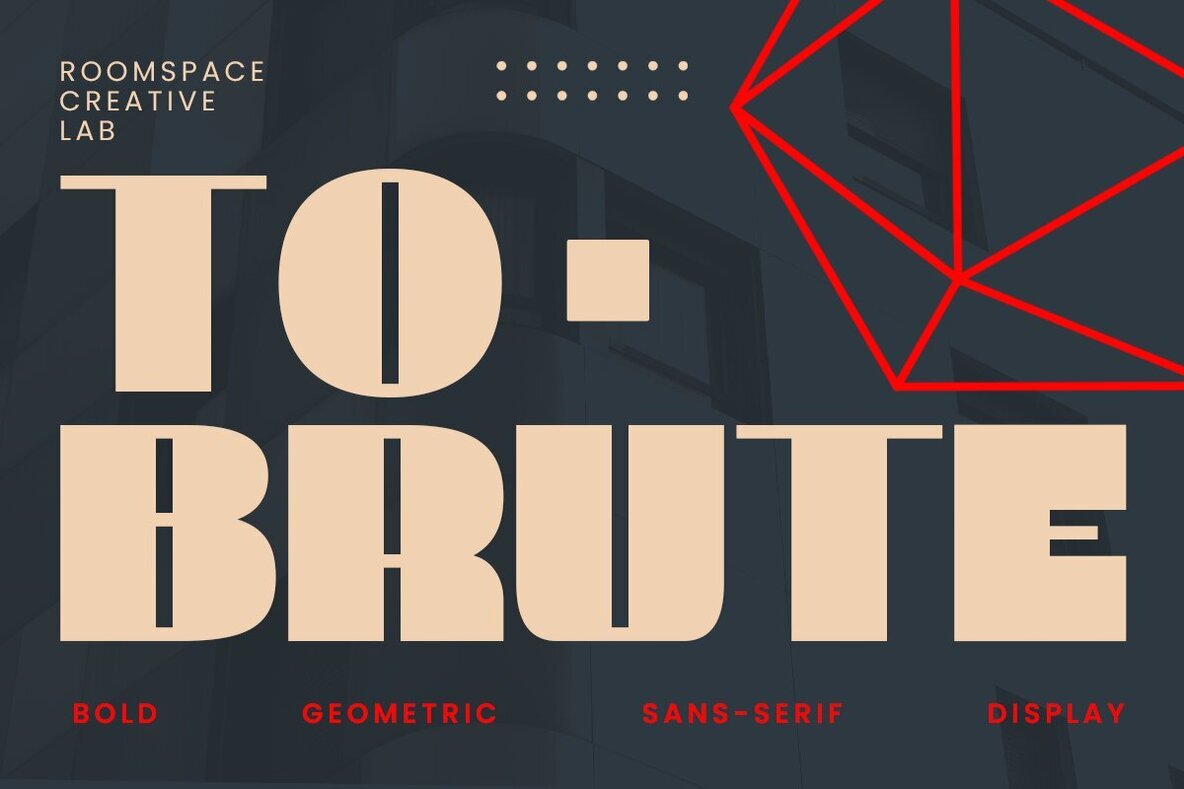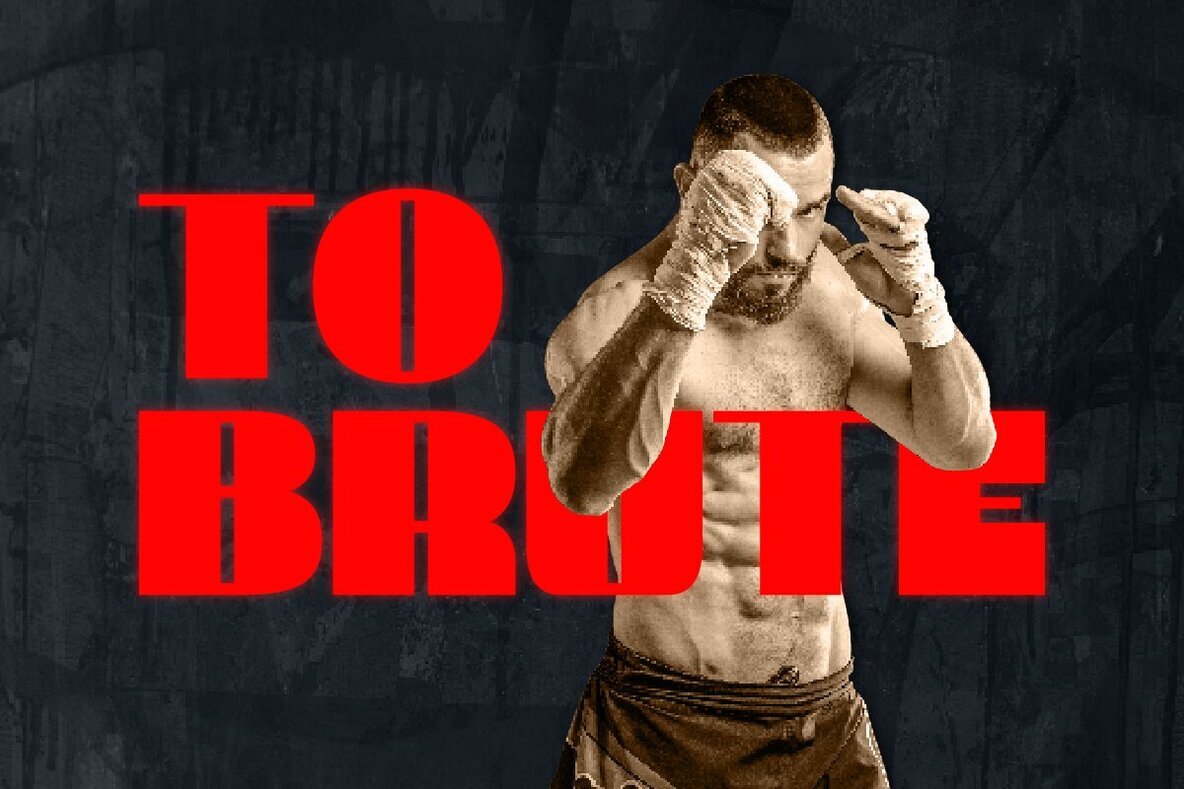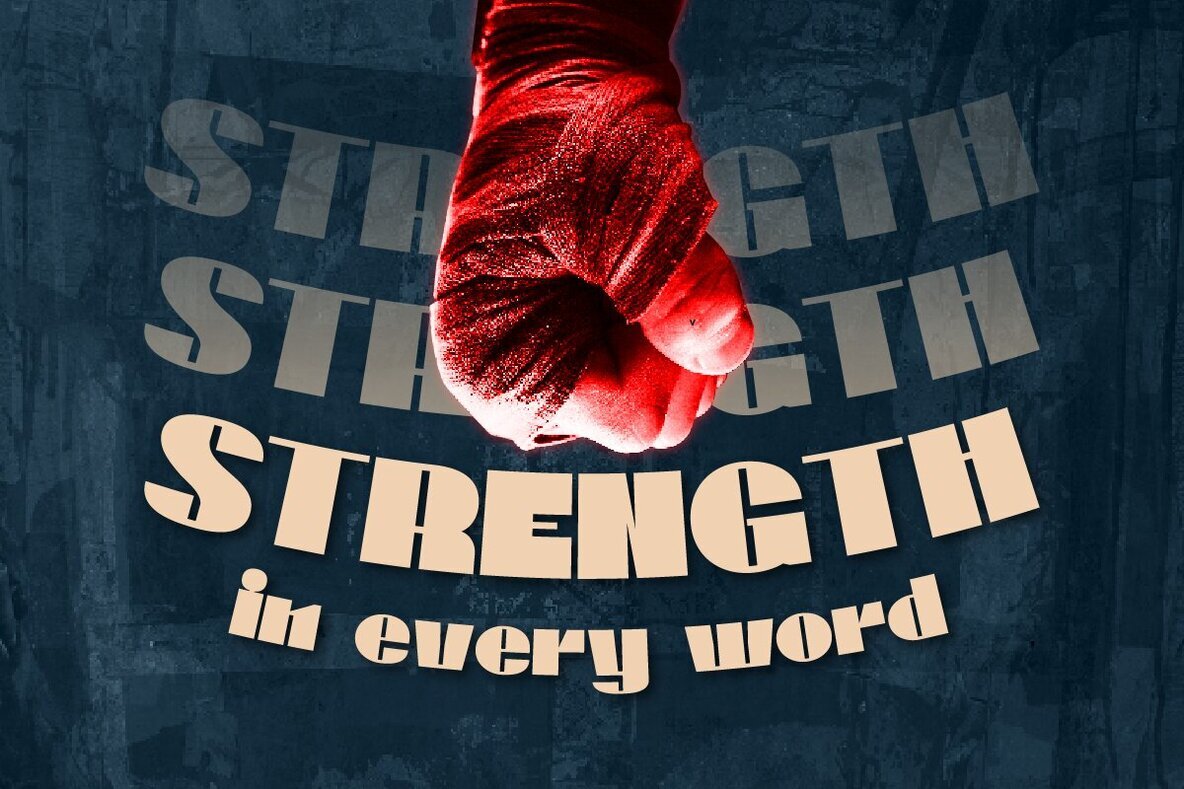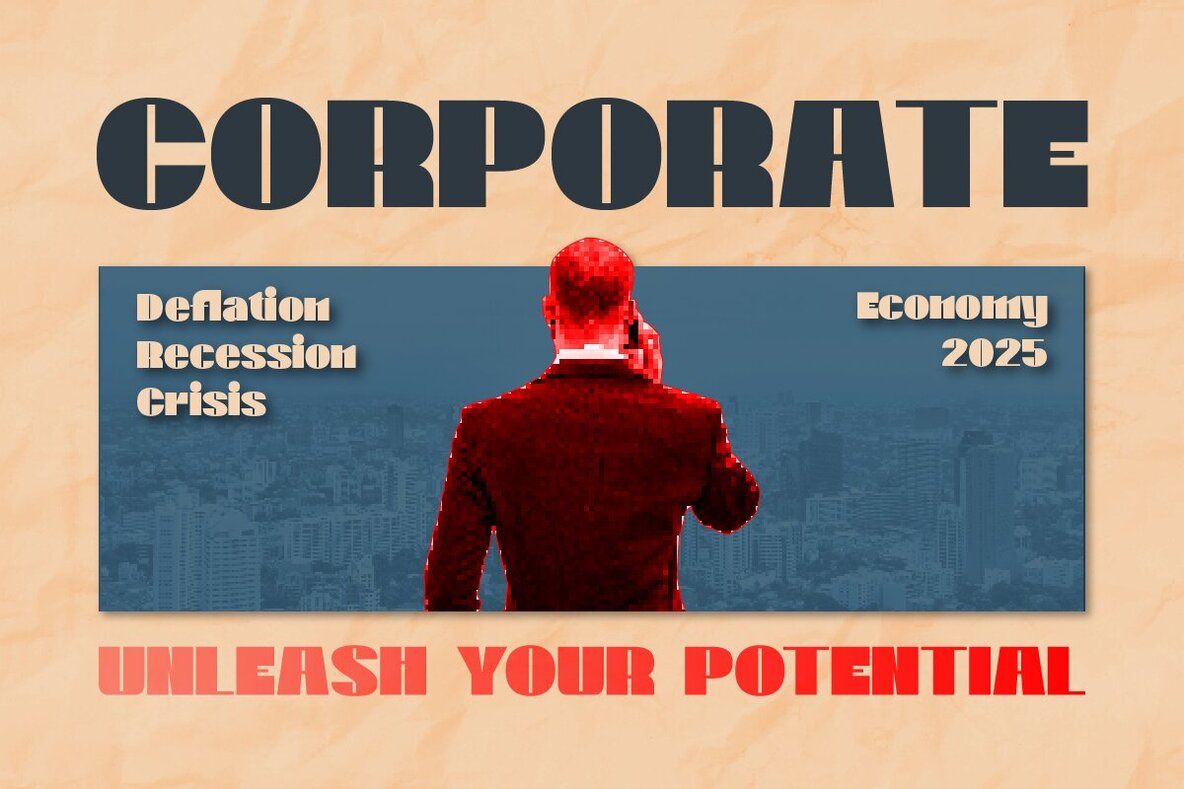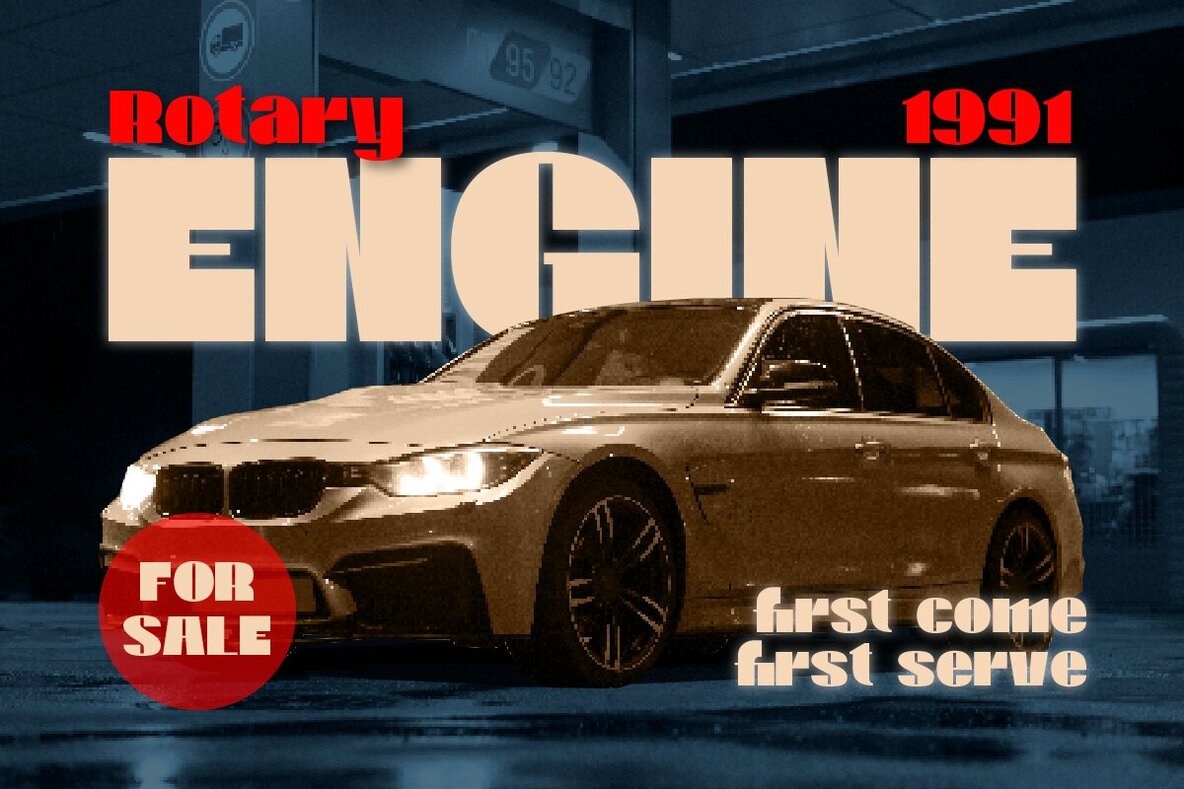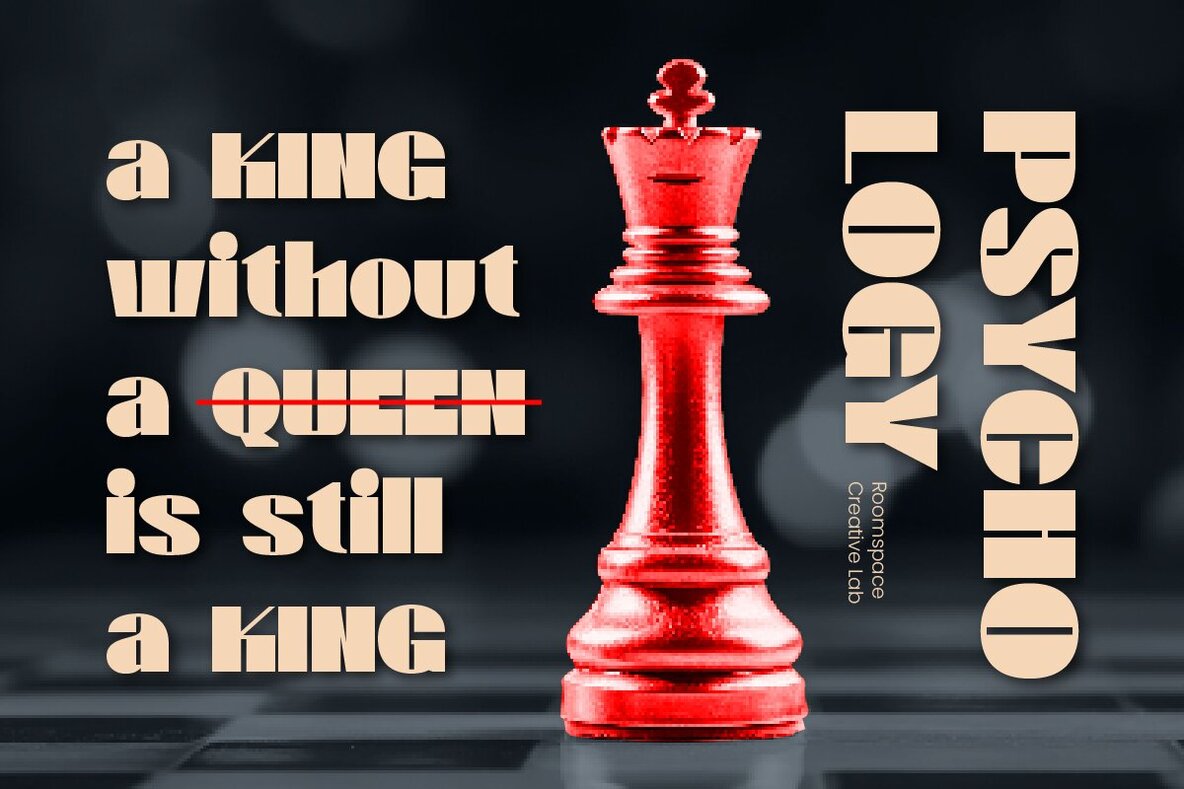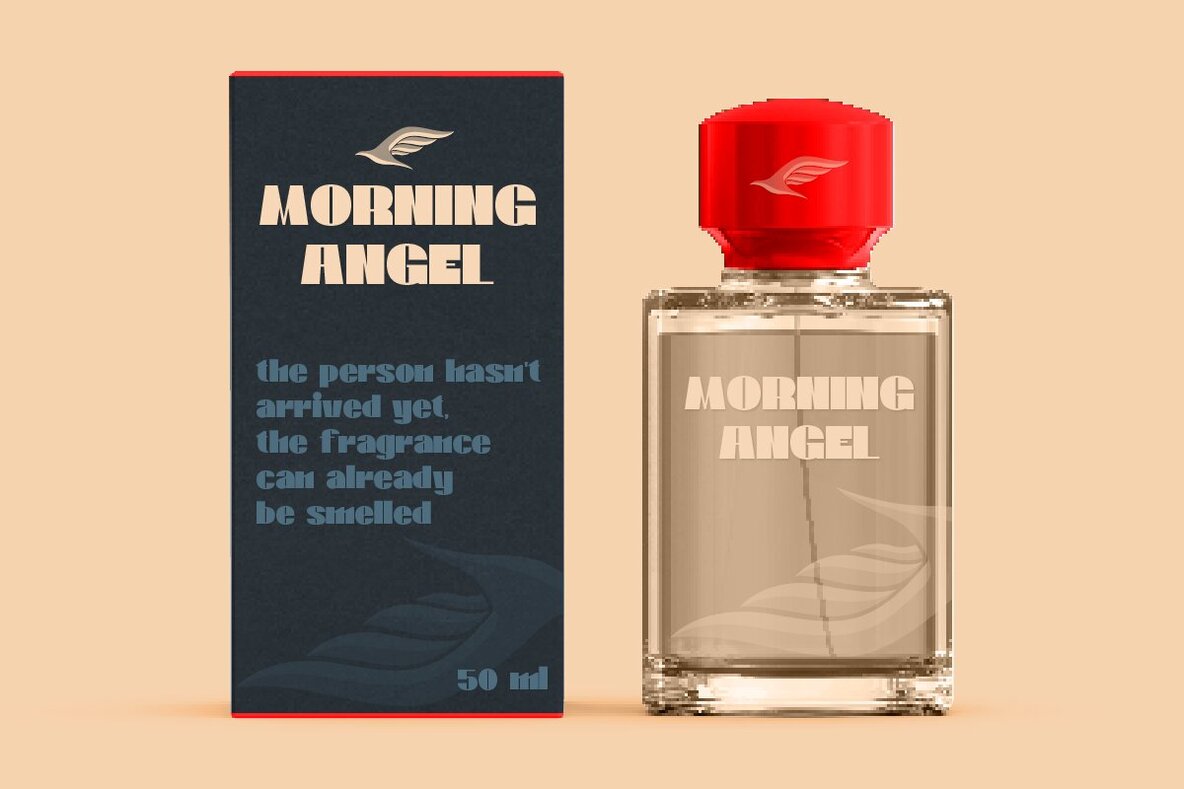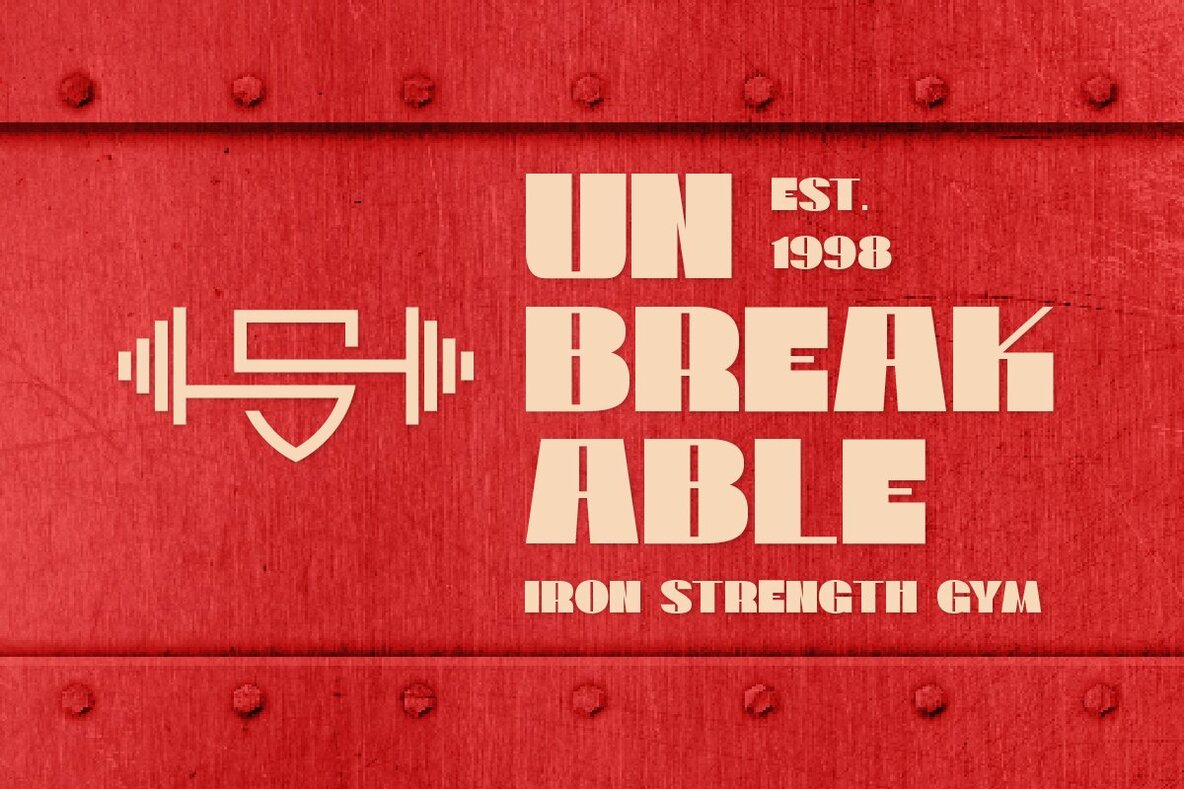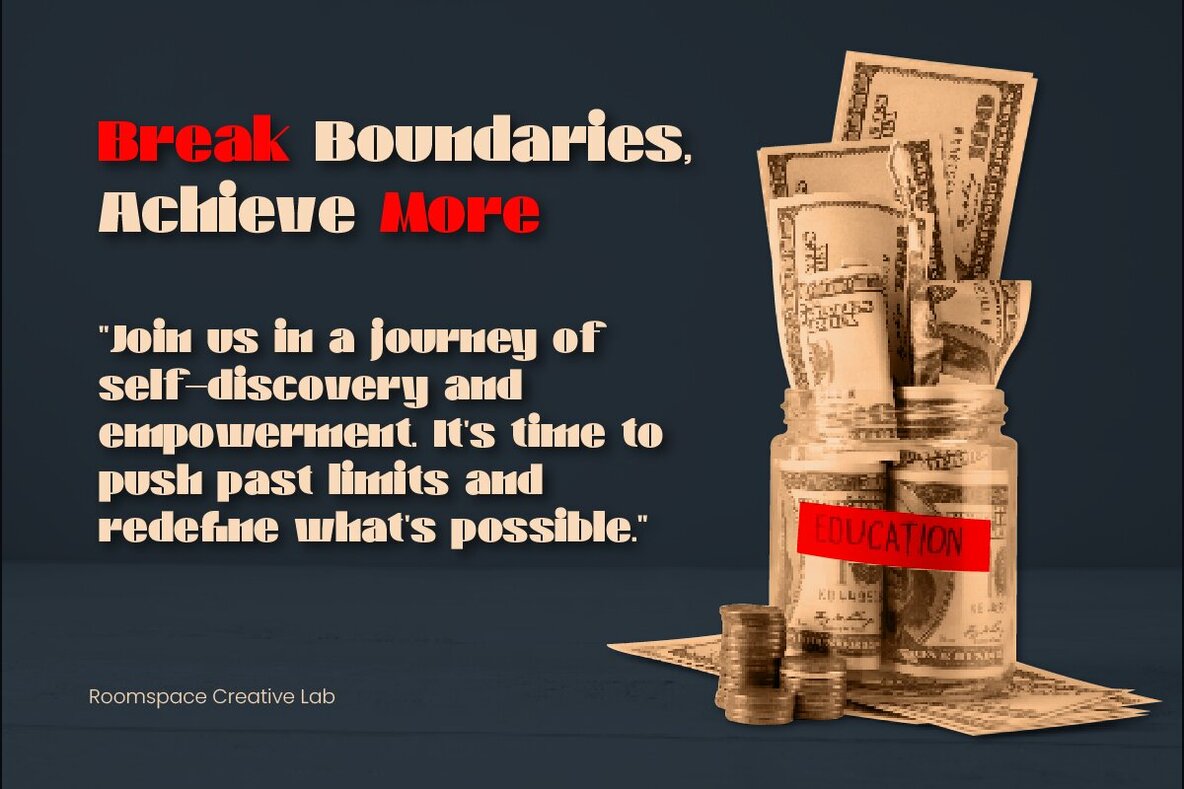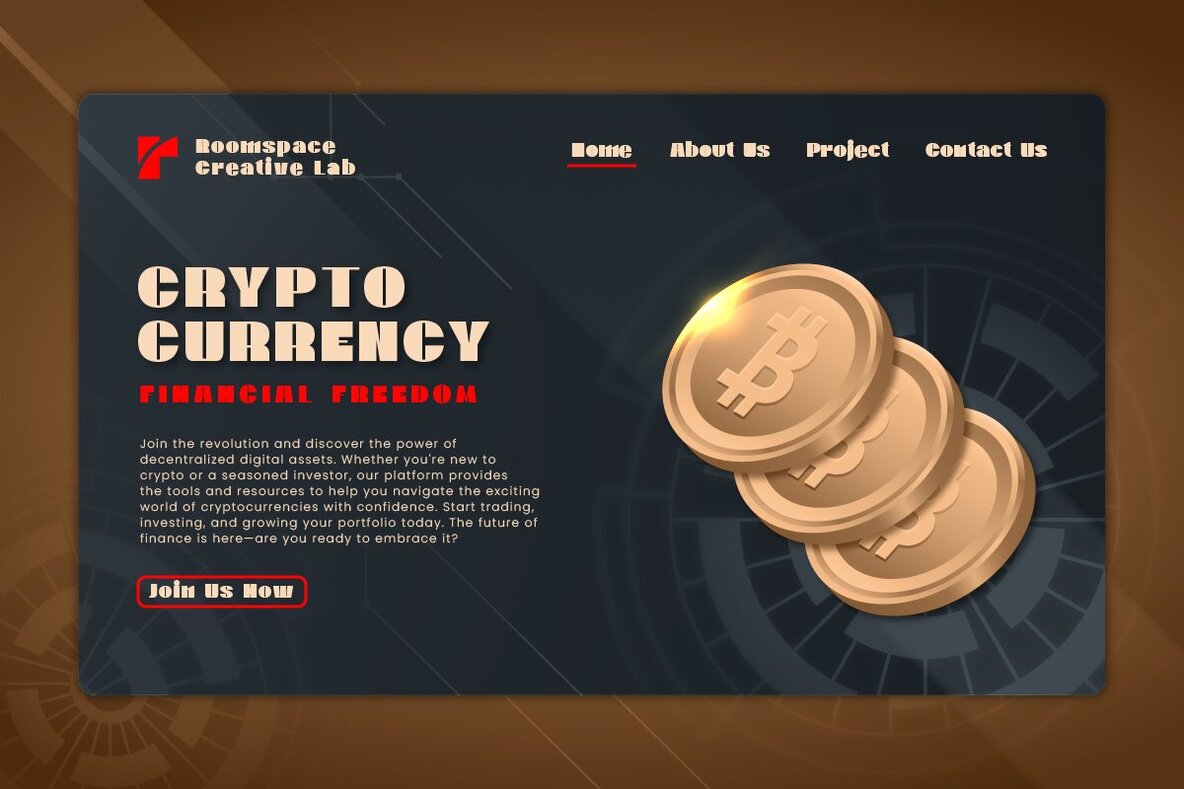
To Brute Font
Step into the world of bold and modern design with To Brute, a sans serif font that offers an innovative twist on classic typography. Each letter is uniquely fashioned, maintaining readability while presenting a fresh perspective. Ideal for branding, logos, sign painting, billboards, sports, and digital media, To Brute lends your projects a distinctive and contemporary flair. From website headers to product packaging, To Brute shines in diverse contexts. Its clean, bold lines ensure standout visuals in every design scenario. Perfect for business owners, content creators, and graphic designers, this typeface offers an opportunity to make a lasting impression with your visual presentations.To Brute: A Bold Sans Serif for Distinctive Design